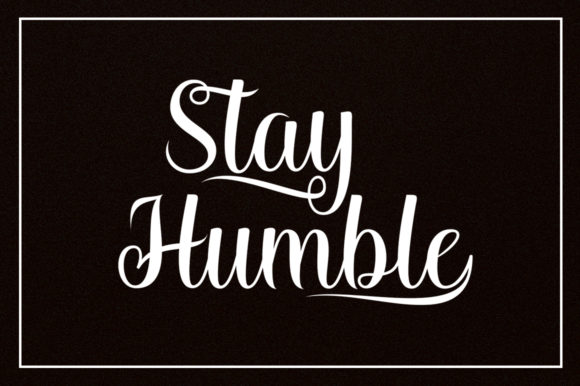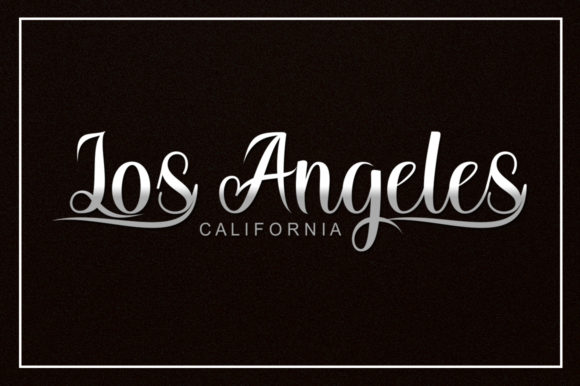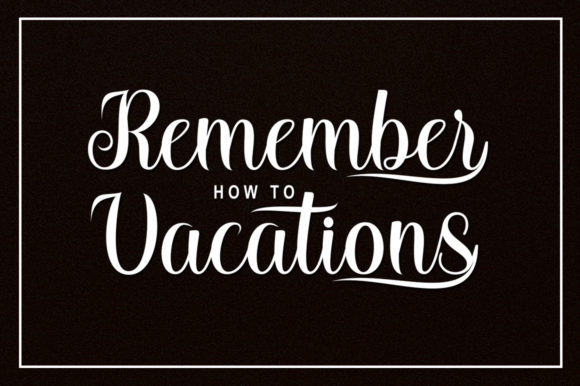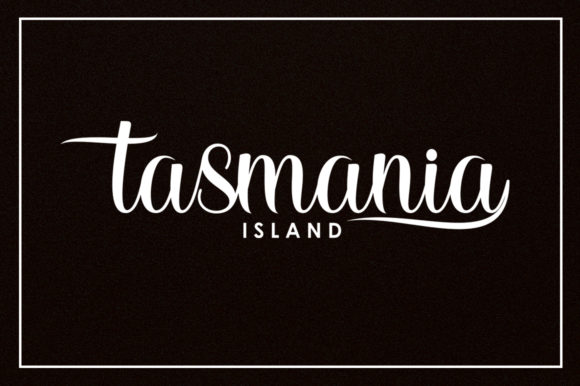
About Stayland Font
Introducing “The Stayland,” a modern script typeface designed to make your designs stand out with its striking yet elegant look. This font is not just a typeface; it’s a design asset crafted to bring a touch of sophistication and visual impact to a variety of creative projects.
“The Stayland” offers a contemporary script style that is both striking and elegant. Whether you’re working on logos, wedding invitations, titles, signatures, t-shirts, letterheads, signboards, labels, posters, or any project that demands attention, this font delivers with its distinctive and eye-catching appearance.
Its versatility allows “The Stayland” to adapt seamlessly to different design contexts. In branding, the font establishes a modern and memorable visual identity. For wedding invitations and titles, it adds an elegant touch to special occasions. Signboards and posters benefit from the font’s striking look, ensuring that your message stands out.
From t-shirts to letterheads, “The Stayland” can be applied to various applications, bringing a consistent and stylish look to your designs. Its ability to make a design statement makes it a valuable asset in your creative toolkit.
In summary, “The Stayland” is more than just a font; it’s a design companion that brings a modern and striking script typeface to your creative endeavors. Embrace its elegance for logos, wedding invitations, titles, and more, and let “The Stayland” elevate your designs with a distinctive and eye-catching flair.